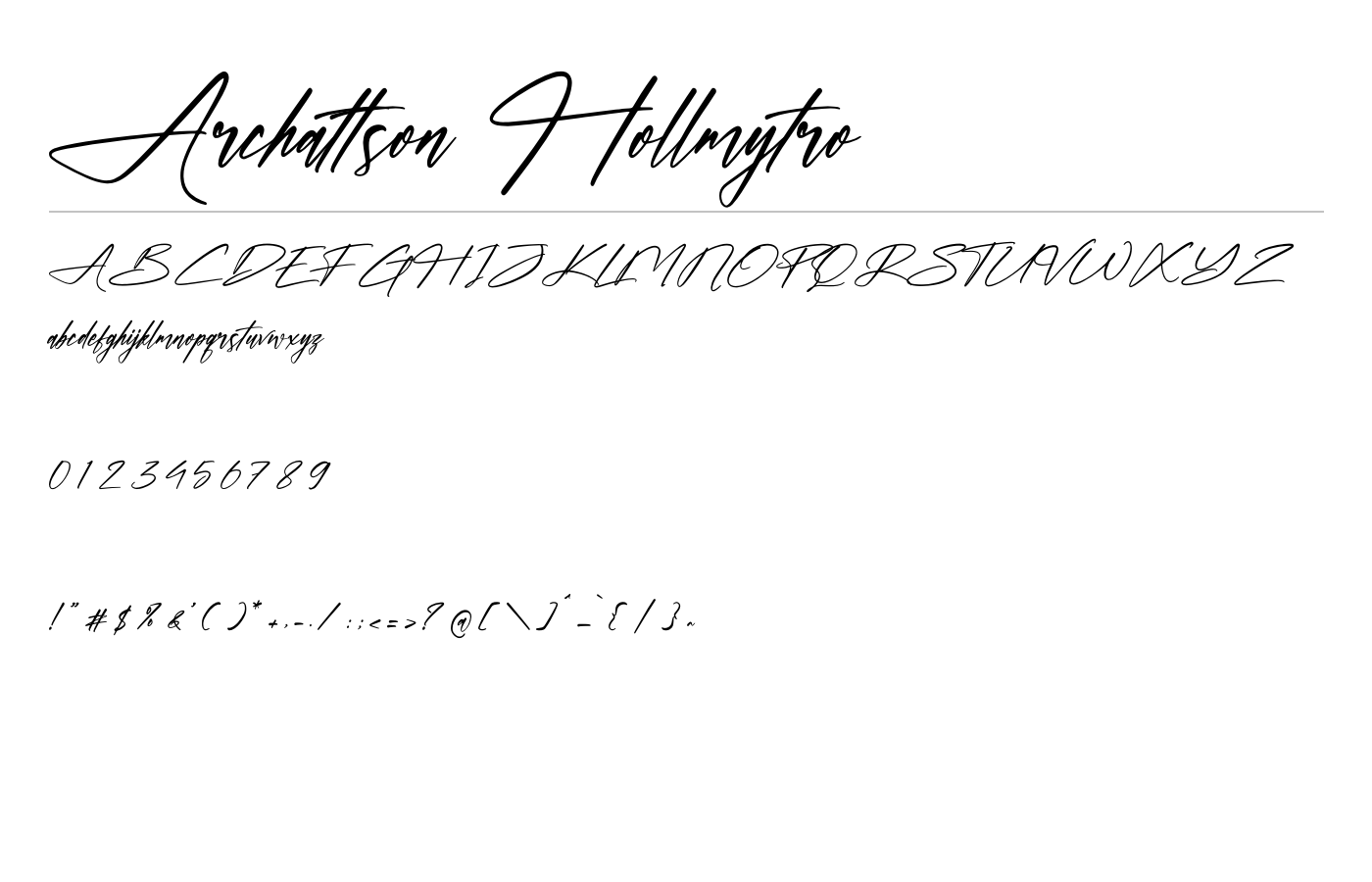
Archattson Hollmytro is an elegant, handwritten script font characterized by its flowing, graceful strokes and a delicate, airy feel. Its slender lines and slightly slanted letterforms convey a sophisticated yet approachable personality, making it ideal for stylish branding, invitations, and fashion-related designs that seek a personal and refined touch. This font works best in headlines or accents where its fluid style can shine without sacrificing readability.
Archattson Hollmytro Font
About Archattson Hollmytro Font